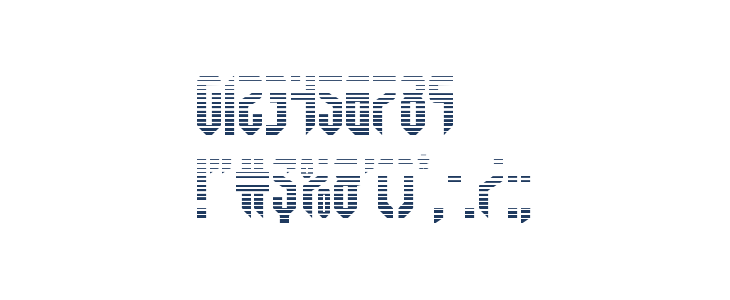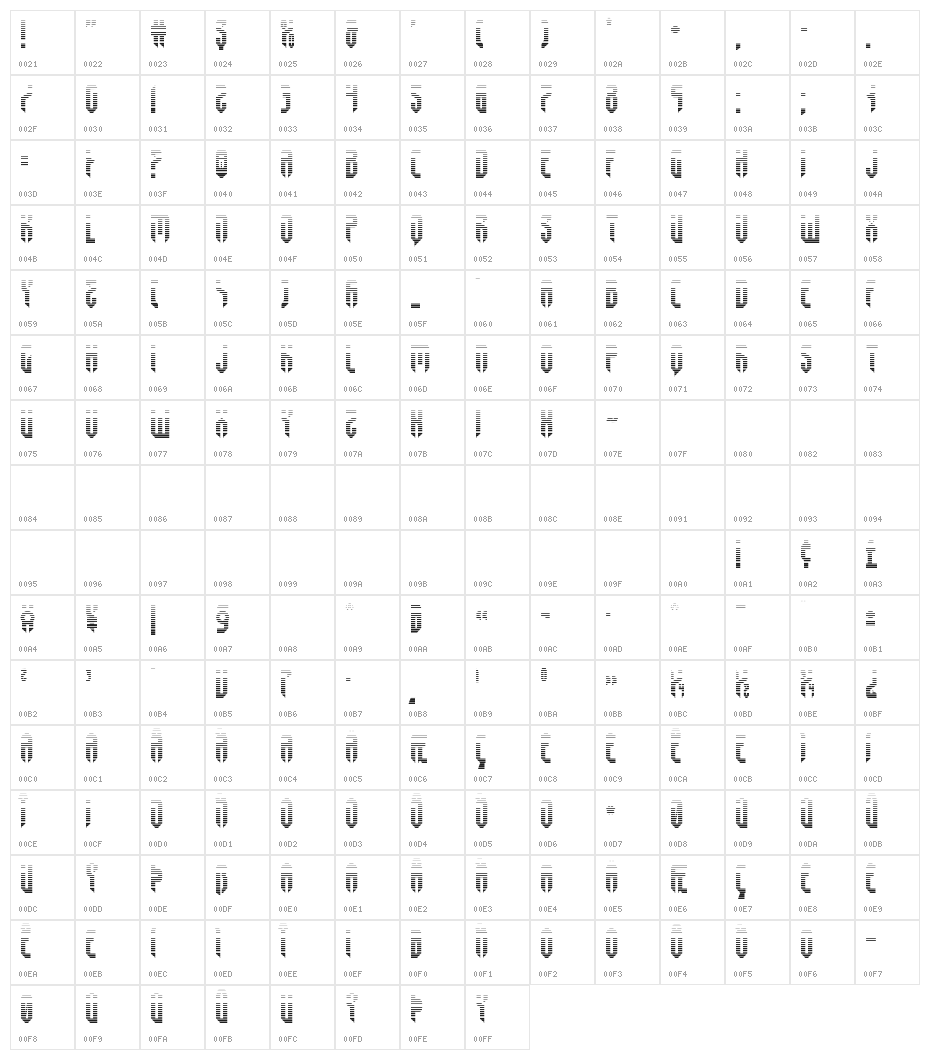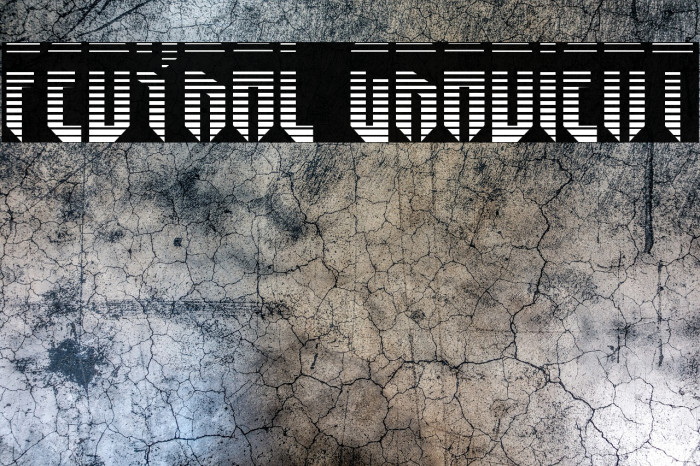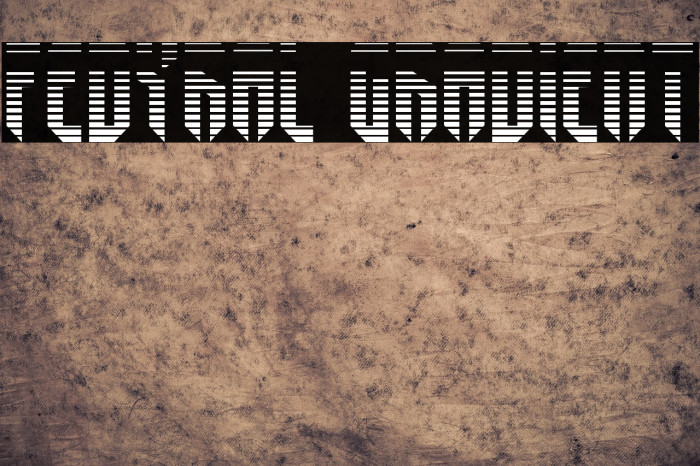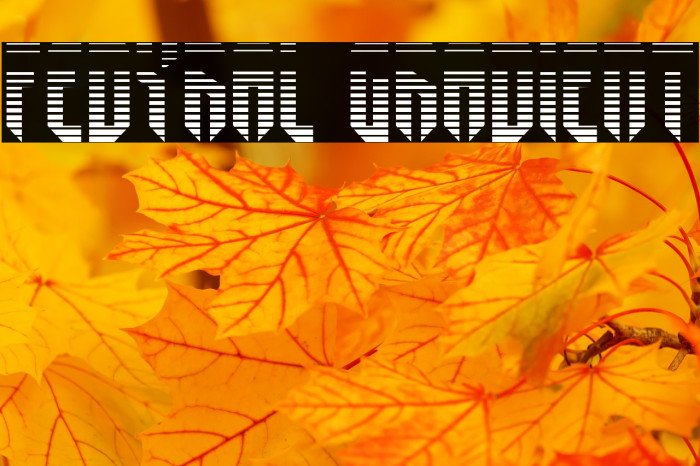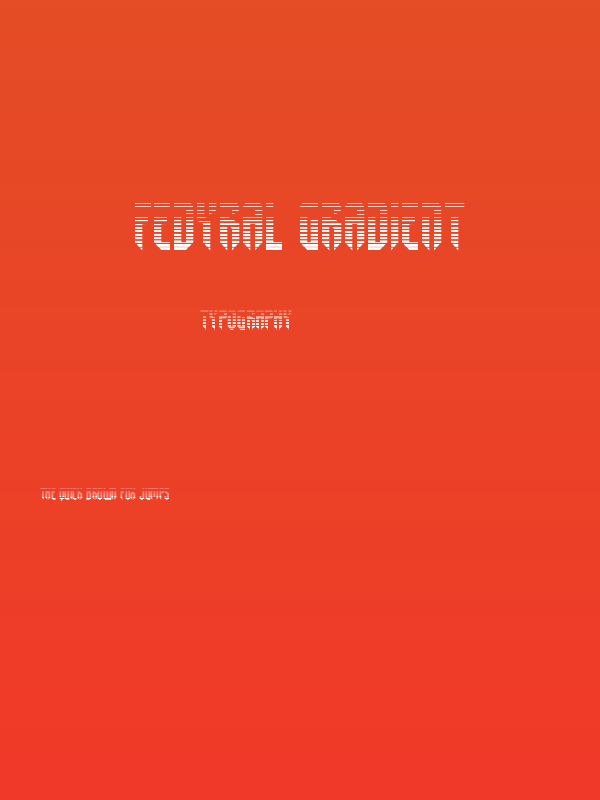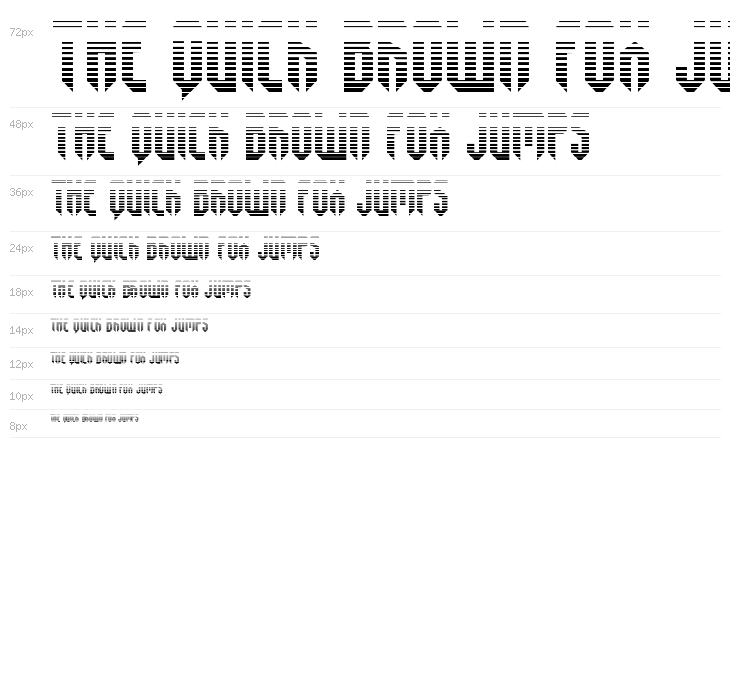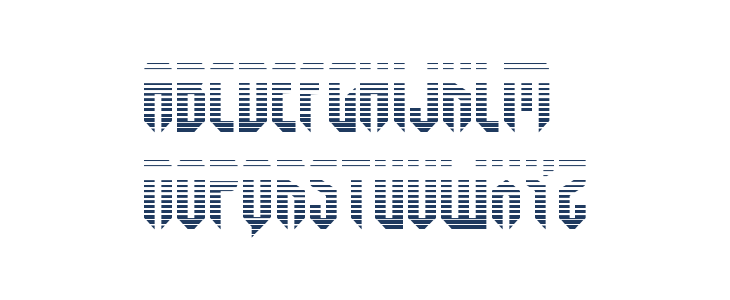
Fedyral Gradient Font
Fedyral Gradient Description
This font features a unique, futuristic design with a gradient effect created by horizontal lines of varying thickness. Each character is composed of solid black lines interspersed with white space, giving it a digital, high-tech appearance. The uppercase and lowercase letters maintain a consistent style, with angular, geometric shapes that suggest a sense of movement and modernity. The numbers and special characters are equally stylized, fitting seamlessly into the overall aesthetic. This font is ideal for projects that require a bold, eye-catching look with a contemporary edge.
| Proposed Projects | Ideal for tech branding, sci-fi posters, video game titles, and digital media. |